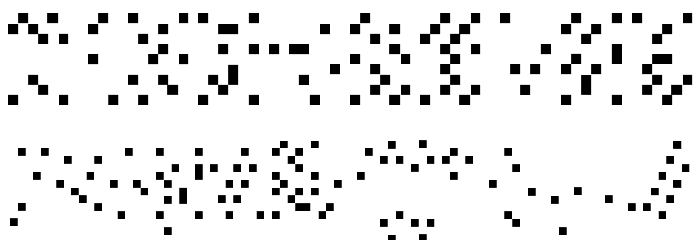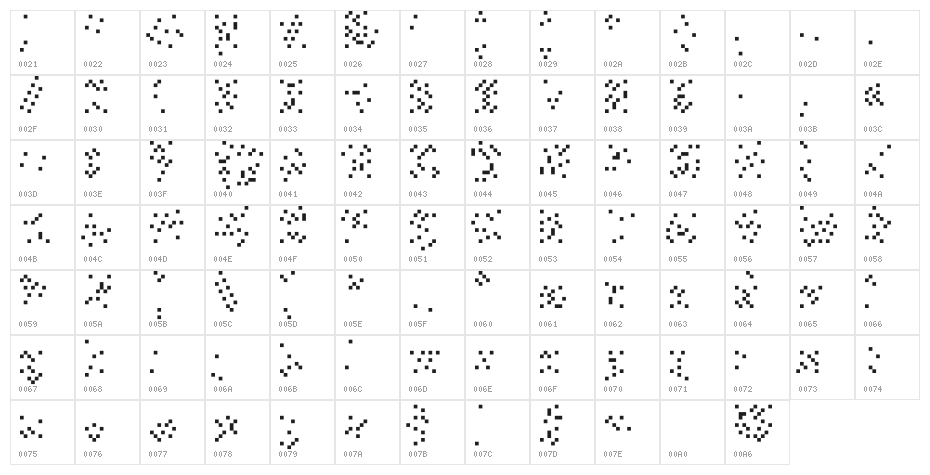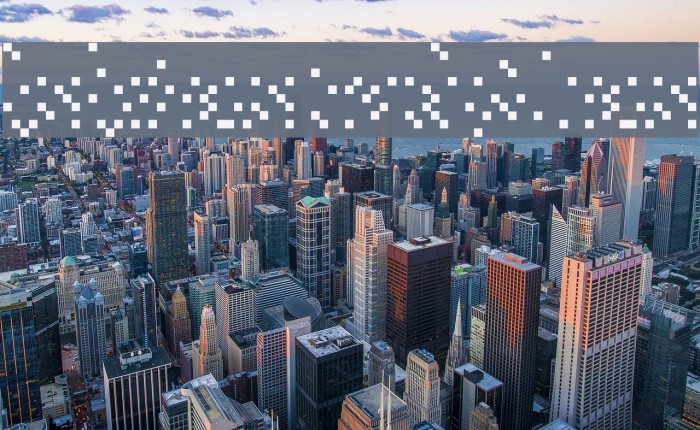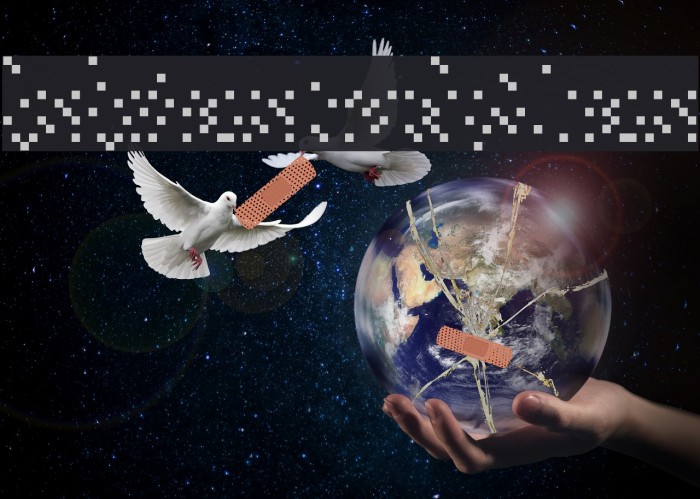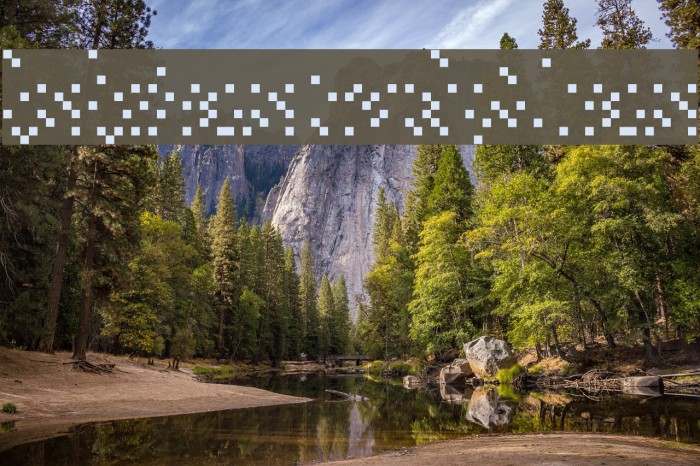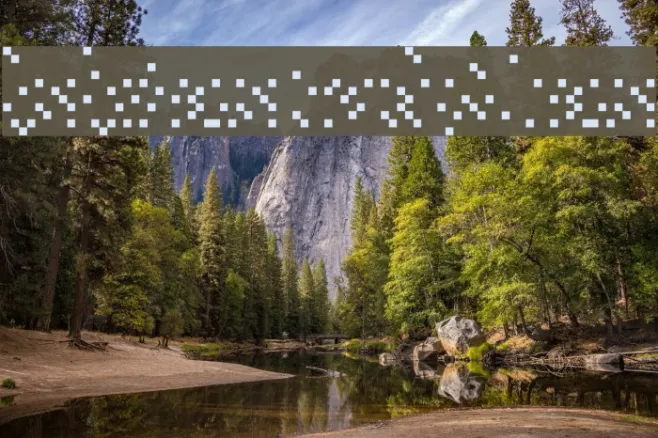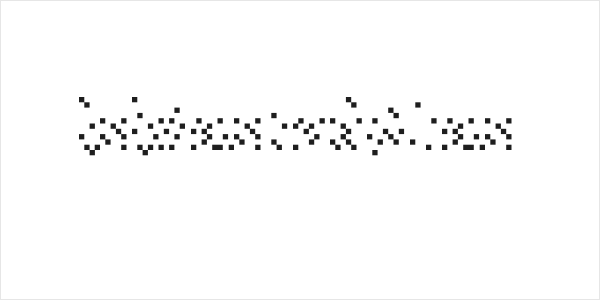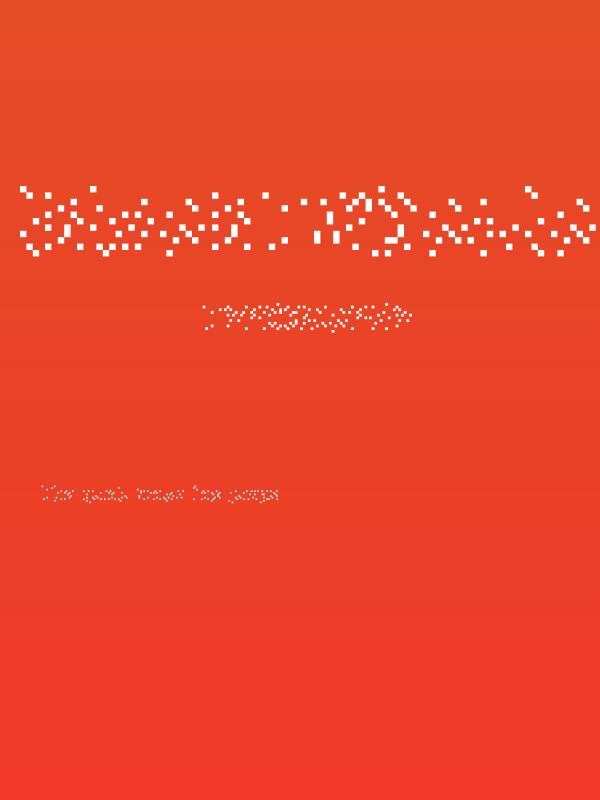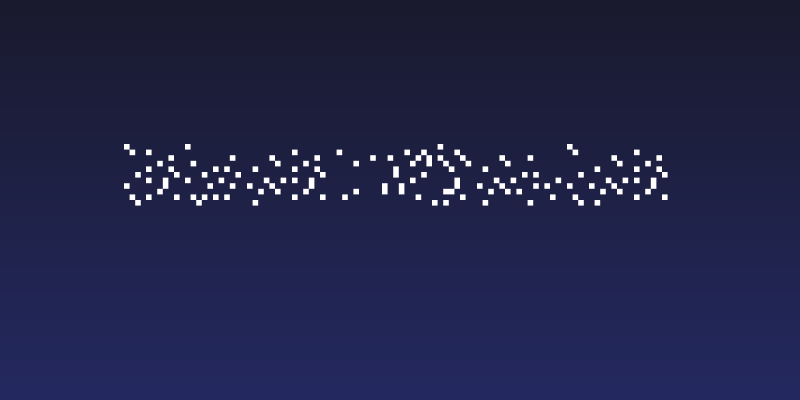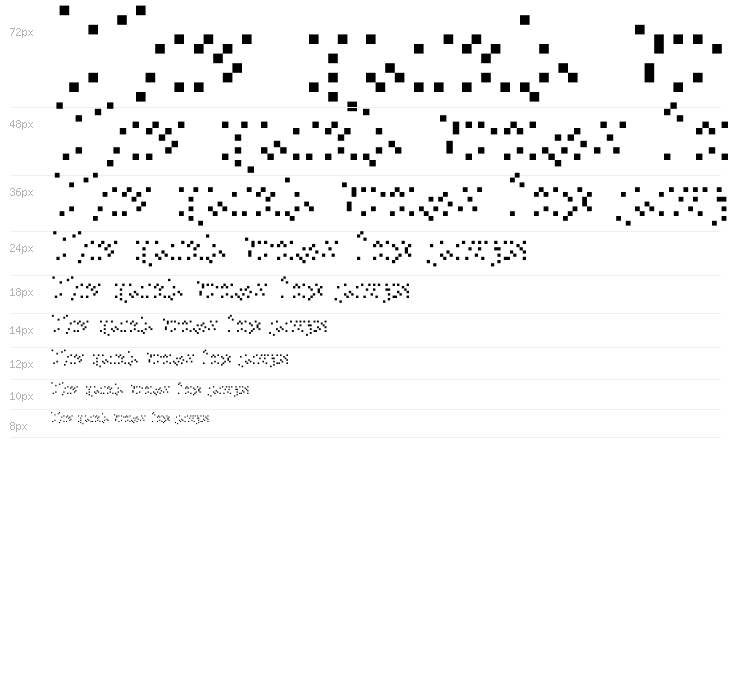
IsWastedAlias Font
IsWastedAlias Description
A pixel-based, highly abstract font composed of small, evenly spaced square dots forming each character. The design is minimalist and digital, with each glyph constructed from a grid of dots, resulting in a fragmented, low-resolution appearance. Letterforms are only just recognizable, emphasizing a technological and experimental aesthetic.
| Overall Style | Experimental, Digital, Abstract |
| Use Case | Logos, Posters, Digital Art, Display Headlines |
| Proposed Projects | Retro digital displays, experimental posters, tech branding, glitch art, video game UI, digital art installations. |